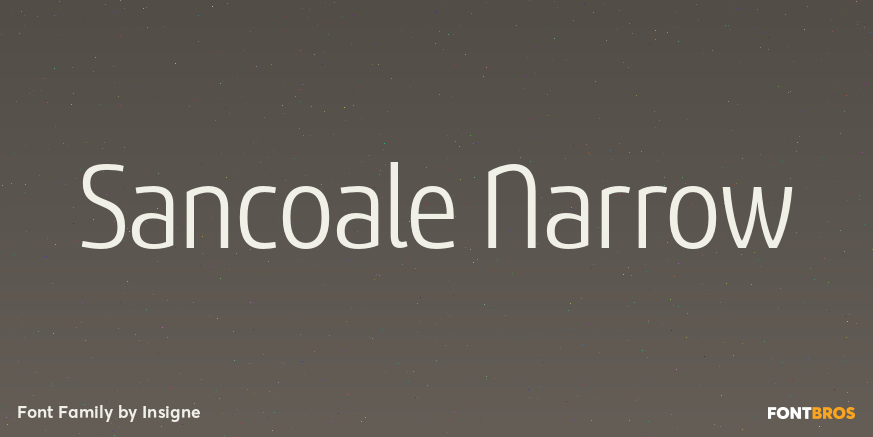
Sancoale Narrow
About Sancoale Narrow
Sancoale Narrow is a carefully honed and meticulously crafted new family member for the Sancoale series. Sancoale Narrow has been specially designed to allow for even more versatility for the Sancoale Family. Sancoale Narrow continues with Sancoale\’s…